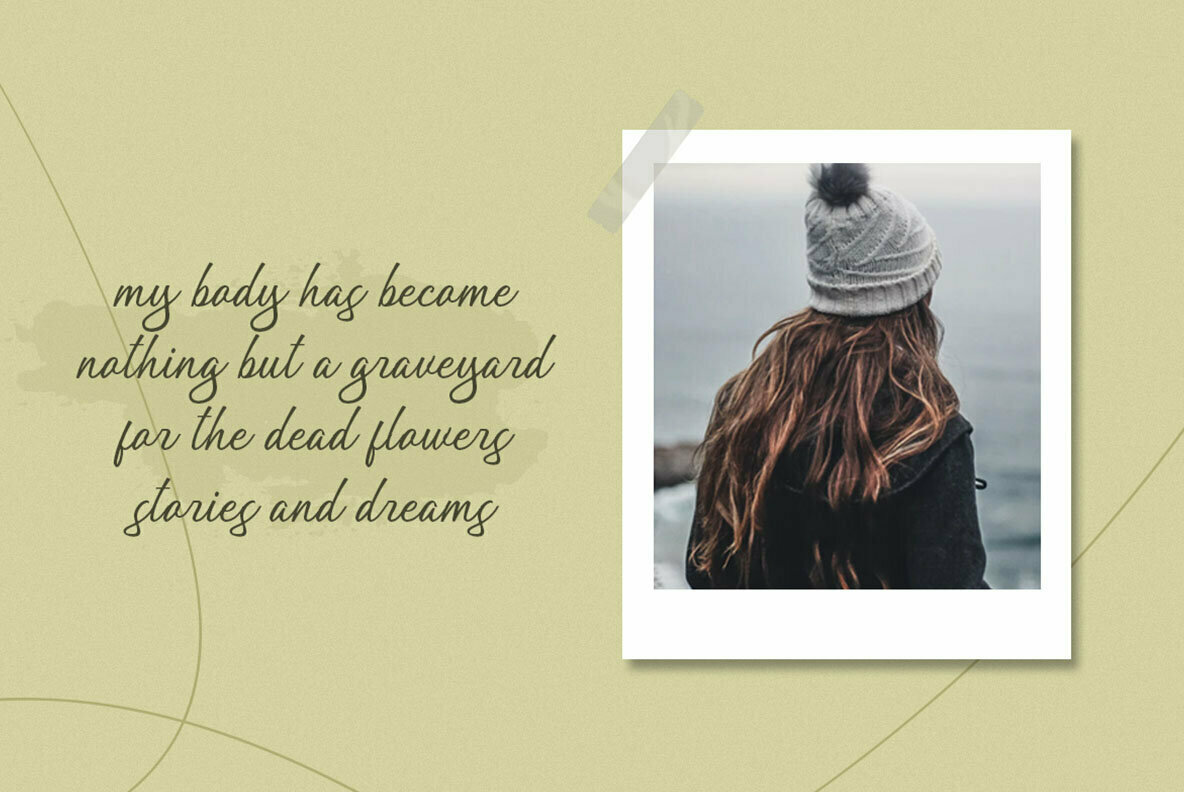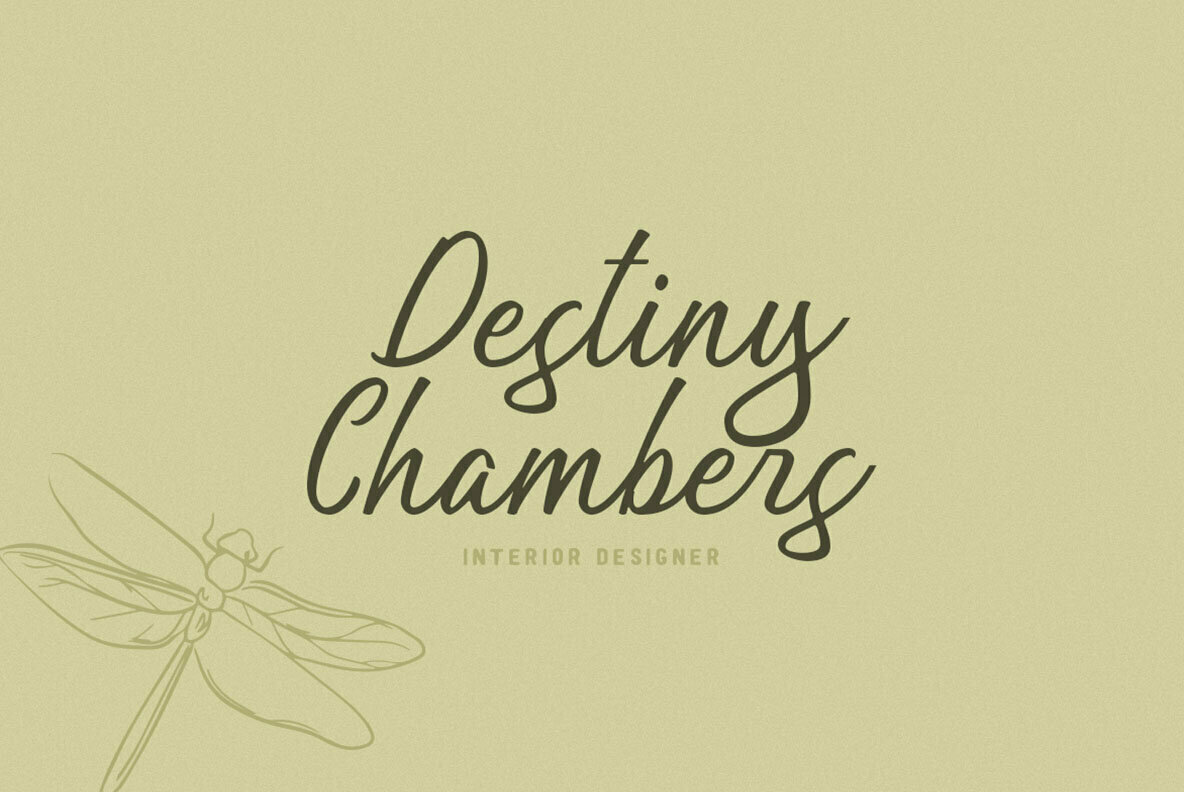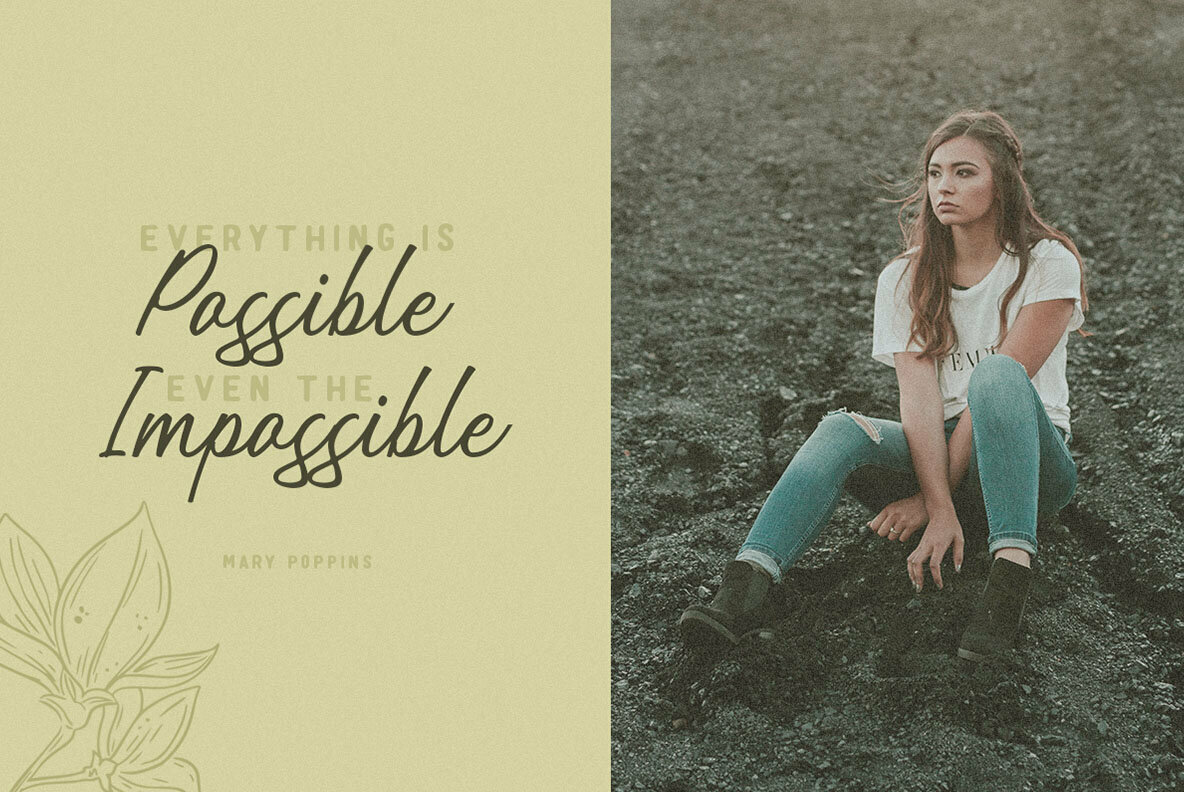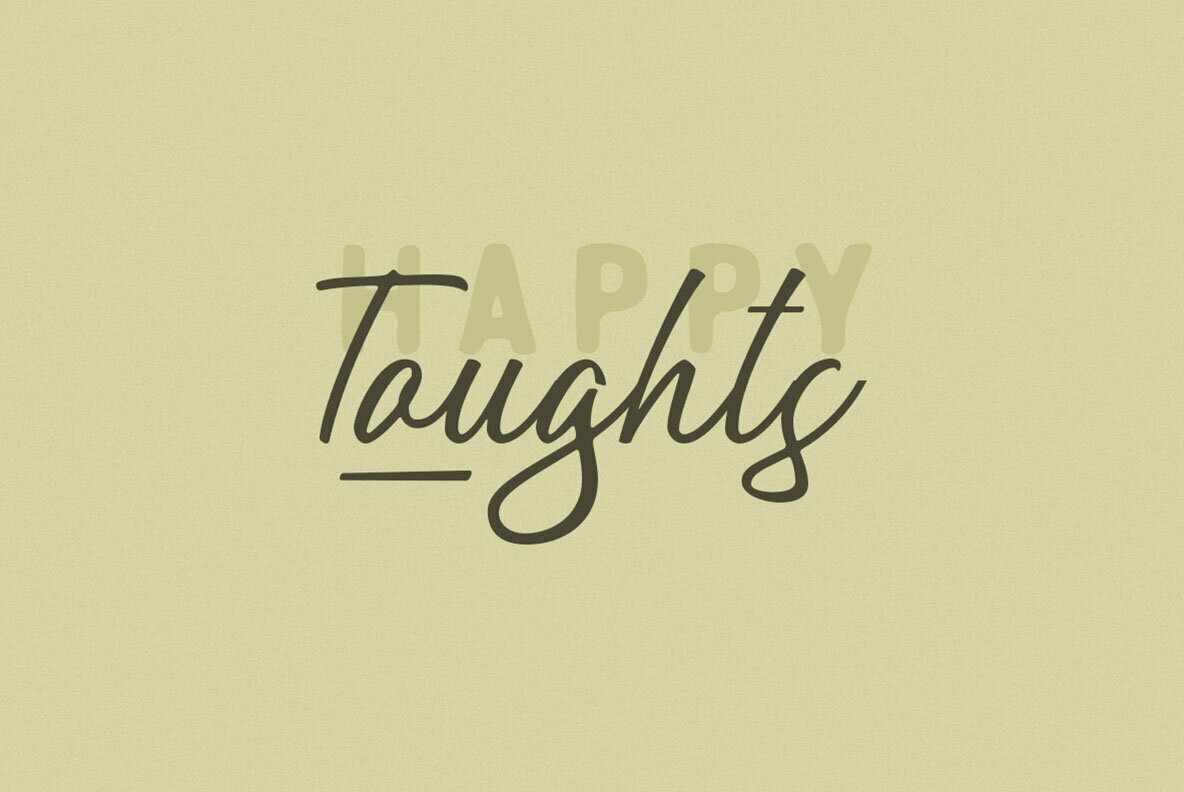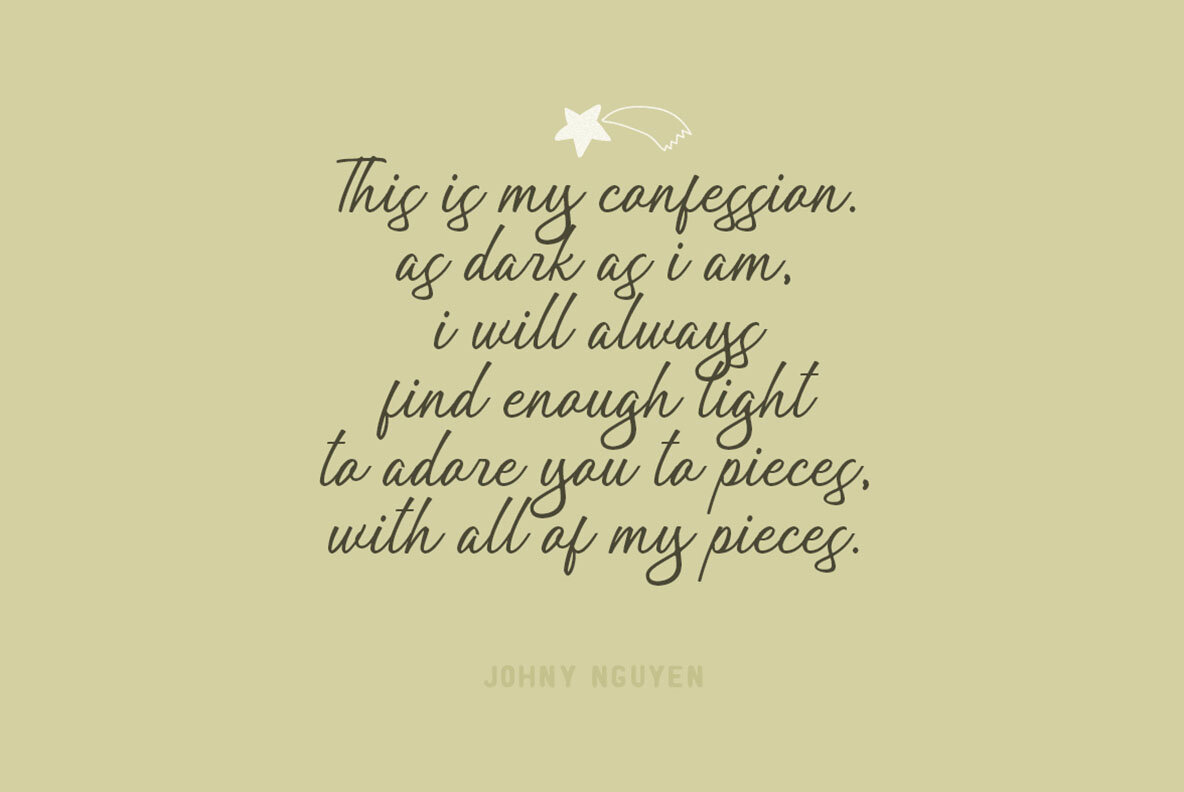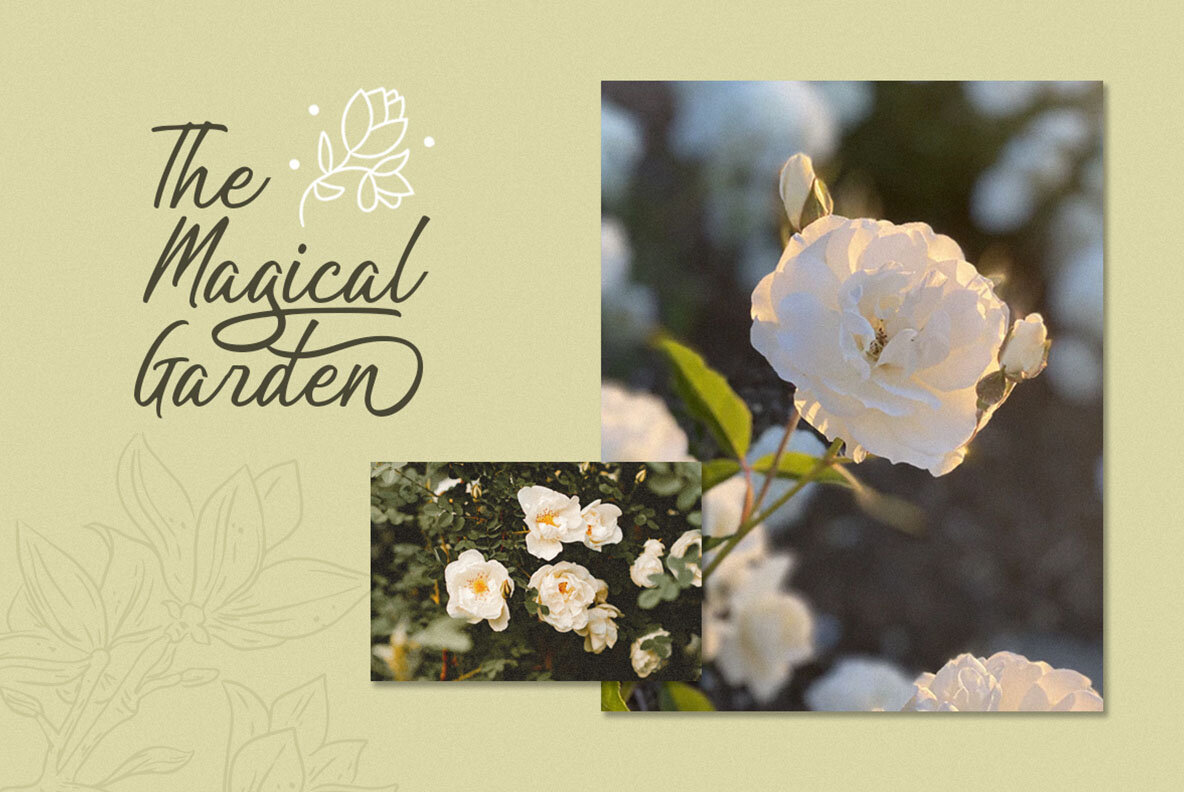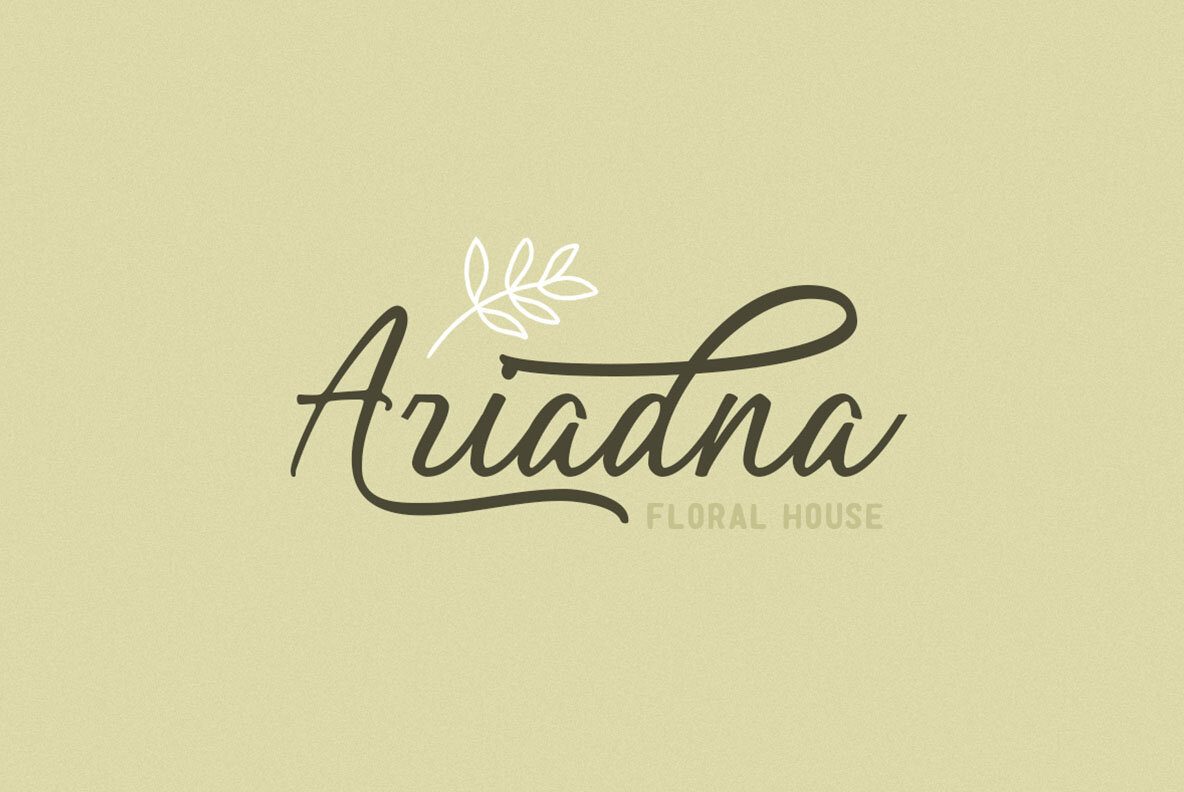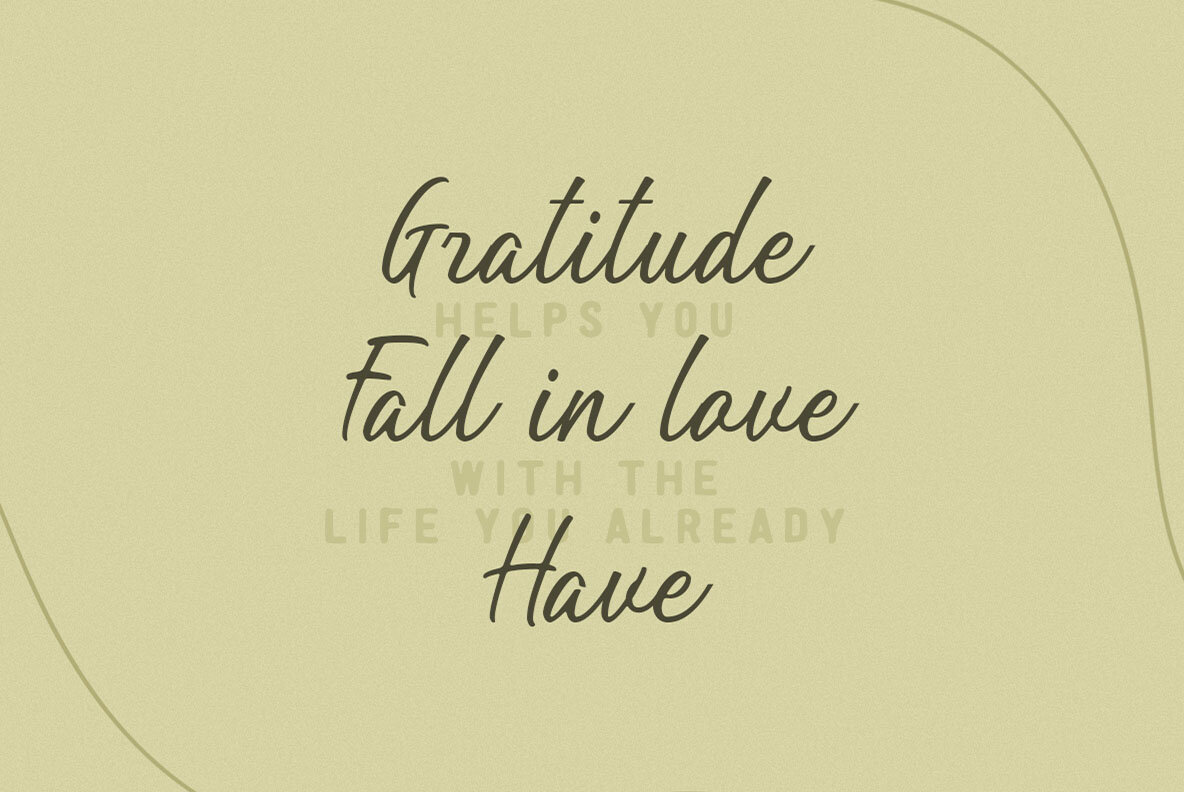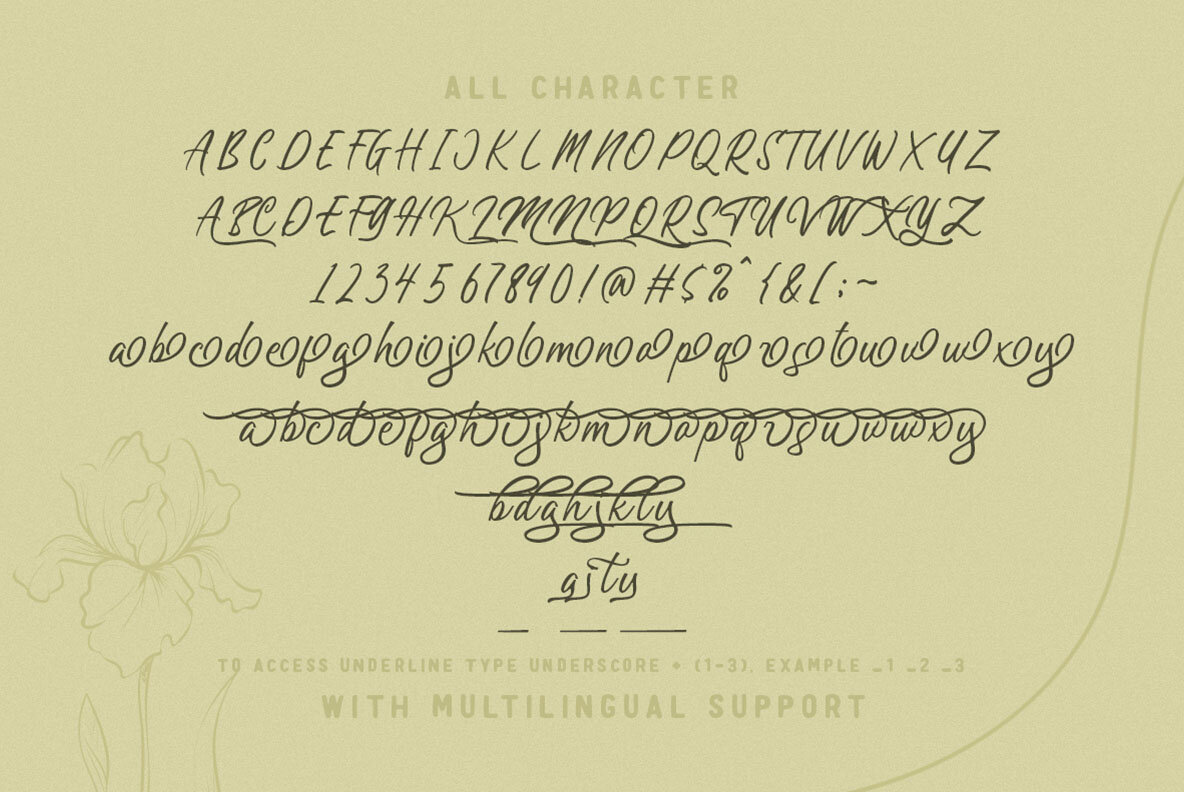
Tahnia Font
Tahnia Regular
Tahnia Modern Script offers a graceful handwritten touch to any creative endeavor. Ideal for headlines, logotypes, and quotes, this font provides the charm of natural scripting with contemporary appeal. The array of alternate characters enhances its versatility, making it suitable for diverse applications, from apparel design to brand packaging.Tahnia: Capturing Elegance in Handwritten Script